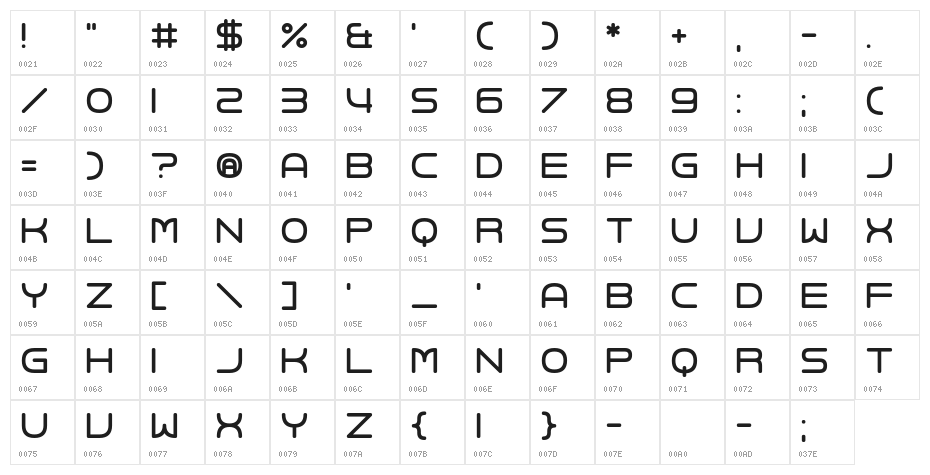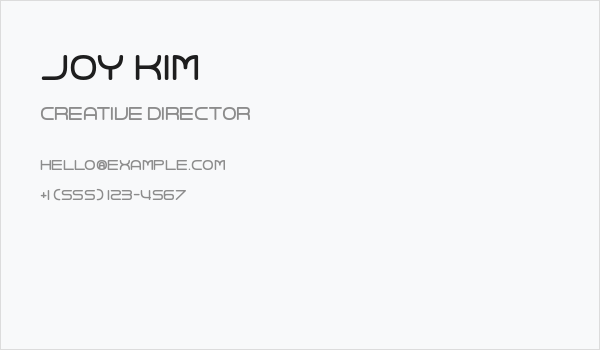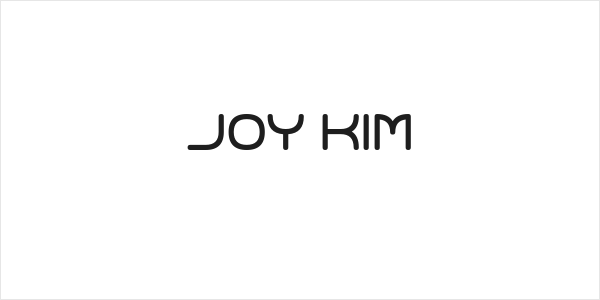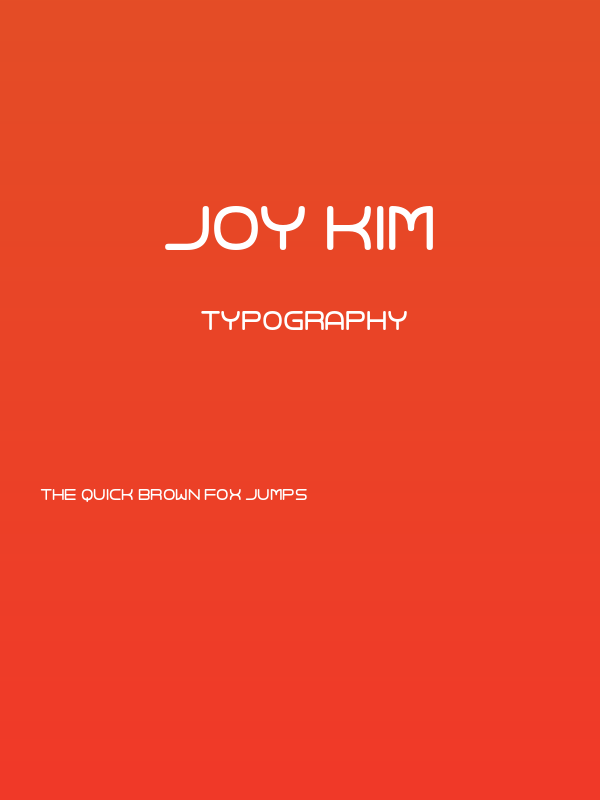
Joy Kim Font
Joy Kim Description
This font features a modern, geometric design with rounded edges and a clean, minimalist aesthetic. The characters are evenly spaced, providing a balanced and harmonious appearance. The uppercase and lowercase letters maintain a consistent style, with smooth curves and a uniform stroke width. The numerals and special characters complement the overall design, making it versatile for various applications. Its simplicity and clarity make it suitable for digital and print media, offering a contemporary look that is both stylish and functional.
| Use Case | Headlines, Logos, Digital Interfaces |
| Proposed Projects | Ideal for tech branding, digital interfaces, modern advertising, and minimalist design projects. |